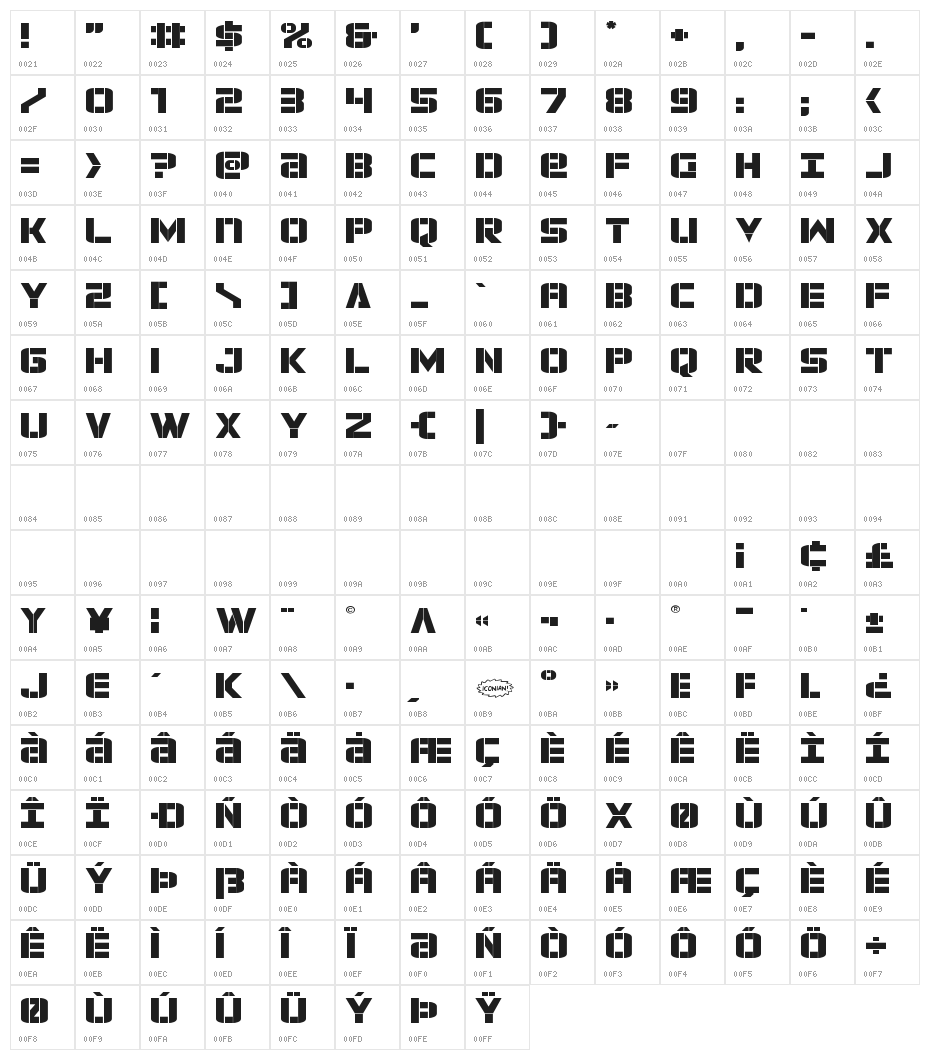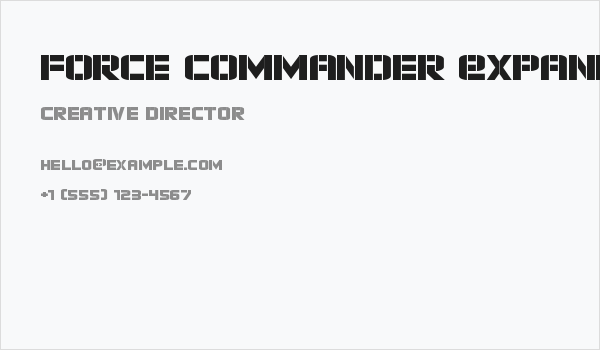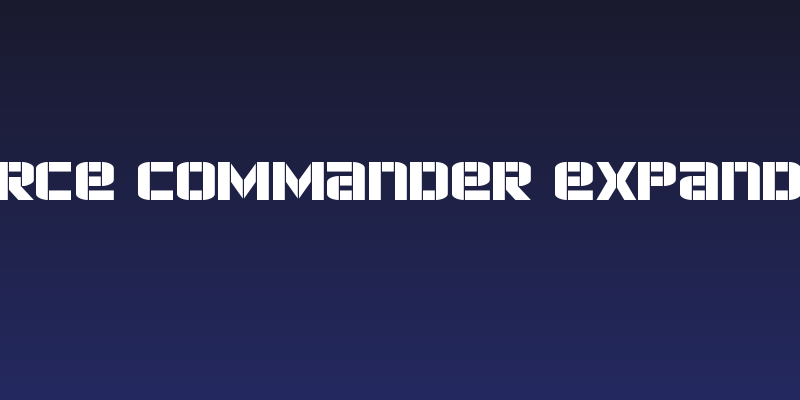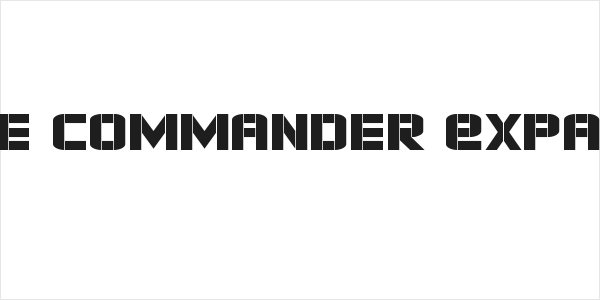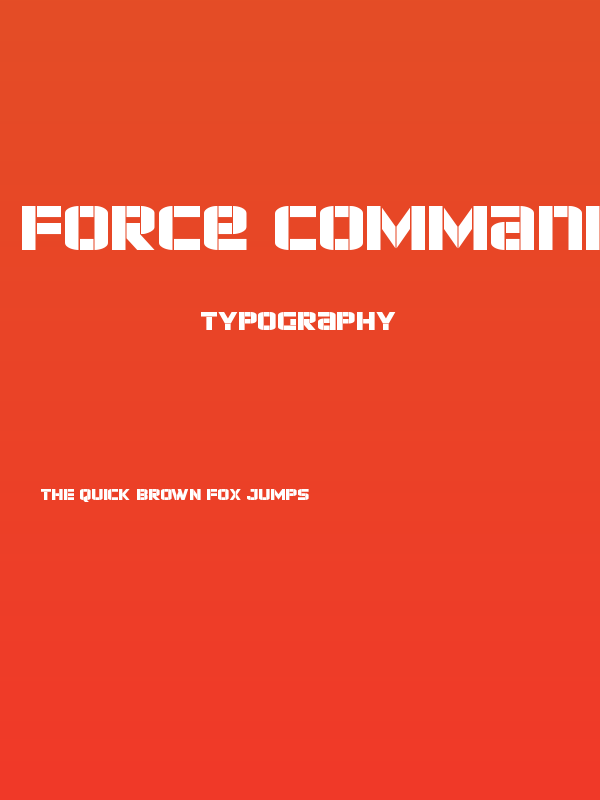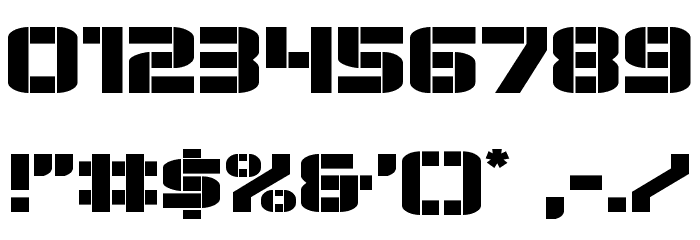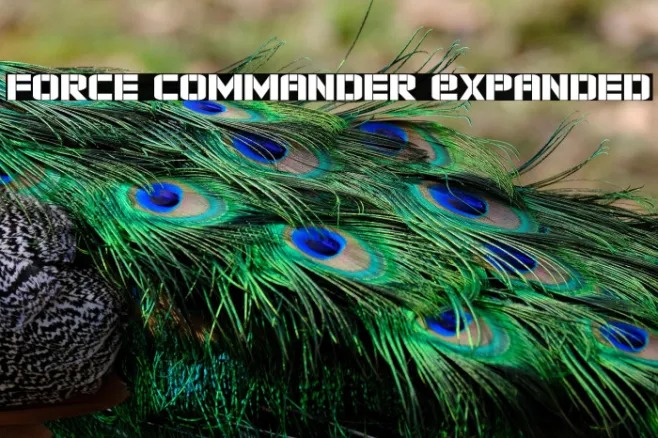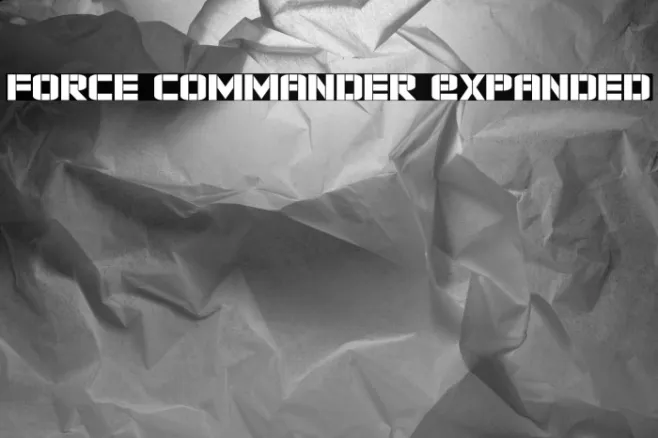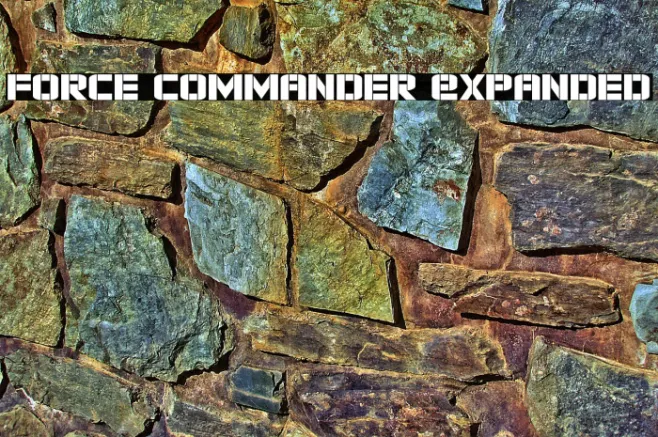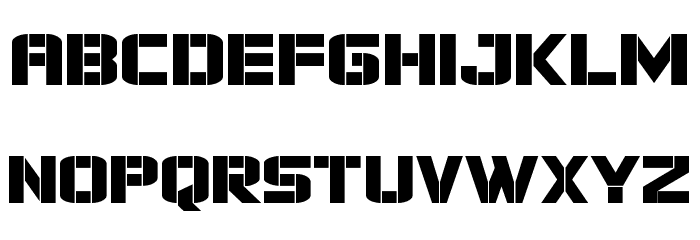
Force Commander Expanded Font
Force Commander Expanded Description
This font features a bold, geometric design with a distinctly futuristic and industrial feel. Each character is constructed with thick, block-like segments that create a sense of strength and stability. The letters are uniformly wide, giving the typeface a monospaced appearance, although it is not strictly monospaced. The uppercase and lowercase letters share the same height, enhancing the font's bold presence. The numbers and special characters maintain the same robust style, ensuring consistency across all glyphs. This font's unique style makes it ideal for projects that require a modern, tech-inspired aesthetic.